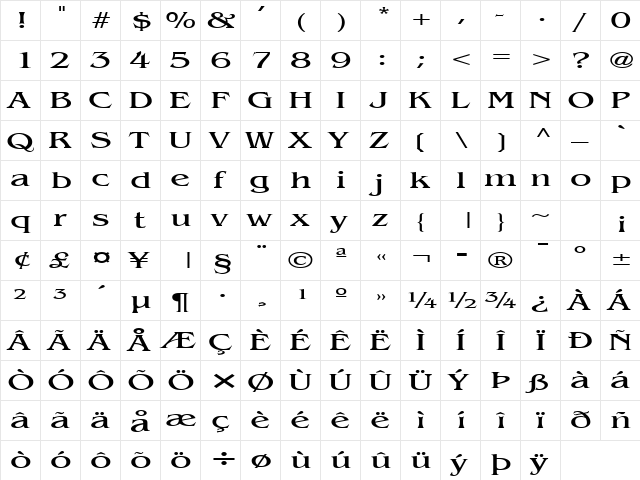
Bangle Extended Normal
Design Context for Bangle Extended Typeface
Bangle Extended takes a measured approach to typography — its balanced proportions and neutral character make it a reliable workhorse for both digital and print work.